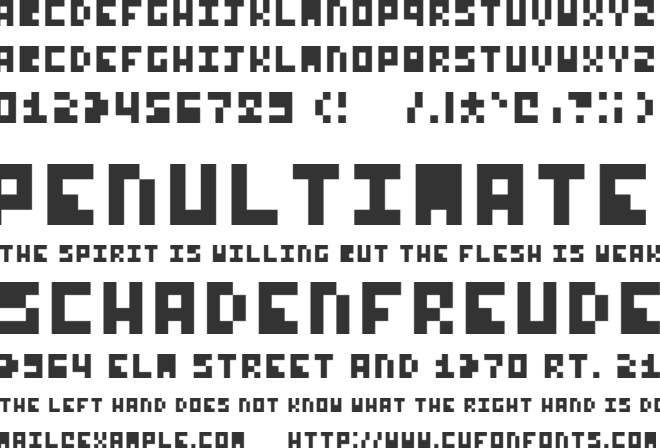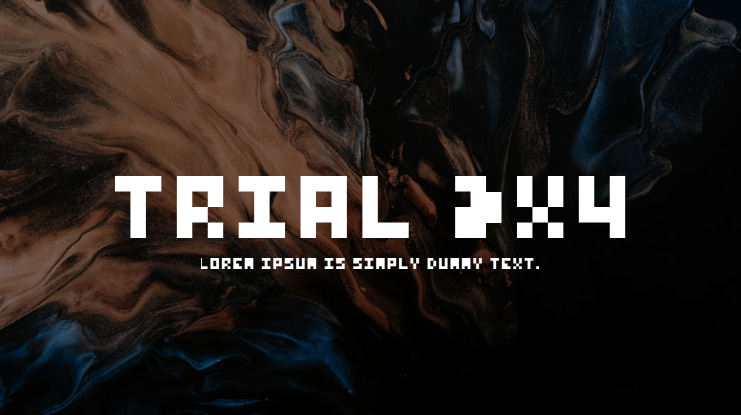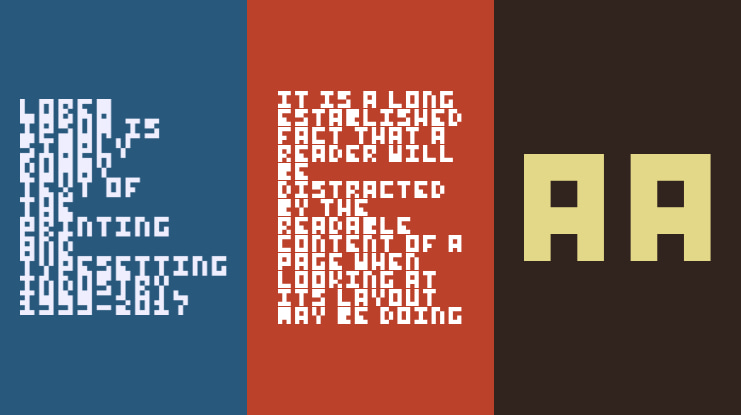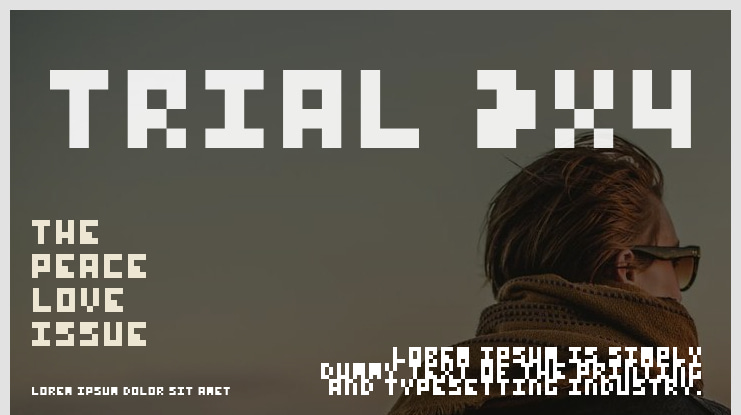
Trial 3x4 Font
Maow
This is a pixelated font that includes almost all ASCII glyphs, each fitting into a fixed 3x4 space. Although it is less legible than a standard font, it possesses a unique charm. The creation of this font was partly a challenge to see how many glyphs I could design within such a limited area.